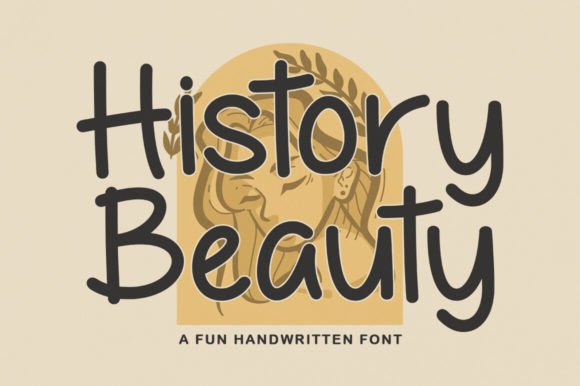
Introducing History Beauty, the ultimate font for unleashing your creativity and adding a touch of elegance to any project. Crafted with love by Kama Studio, this mesmerizing handwriting font exudes a sweet and captivating aura that will leave a lasting impression on your audience.
With its flourishing character and impeccable charm, History Beauty offers endless possibilities for your design needs. Whether you're working on branding materials, social media graphics, inspiring quotes, invitations, business cards, or even movie covers, this font will elevate your creations to a whole new level.
Imagine the impact of beautiful, handcrafted typography that effortlessly captures attention and evokes emotion. With History Beauty, every word becomes a work of art, weaving a tale that resonates deeply with your target audience. Its intricate strokes and graceful curves breathe life into your message, making it impossible to ignore.
Unlock your imagination and let History Beauty guide your creative journey. Its versatility knows no bounds, allowing you to effortlessly adapt it to any style or theme. Whether you seek a vintage vibe, a modern touch, or a fusion of both, this font effortlessly adapts to your vision, bringing it to life with finesse.
Indulge your senses as you explore the endless possibilities that History Beauty has to offer. Let your designs speak volumes, captivating hearts and minds with every stroke. From delicate wedding invitations to eye-catching social media posts, this font sets the stage for unforgettable experiences.
Immerse yourself in the enchanting world of History Beauty and witness the power of captivating typography. Fall in love with its flowing elegance and let it become the voice of your brand or project. Elevate your designs, make a statement, and leave a lasting impression that stands the test of time.
Don't settle for ordinary fonts when you can have something extraordinary. Step into the realm of beauty and creativity with History Beauty, the best font for brochure text that will take your designs from good to breathtaking. Download it now and let your imagination run wild.